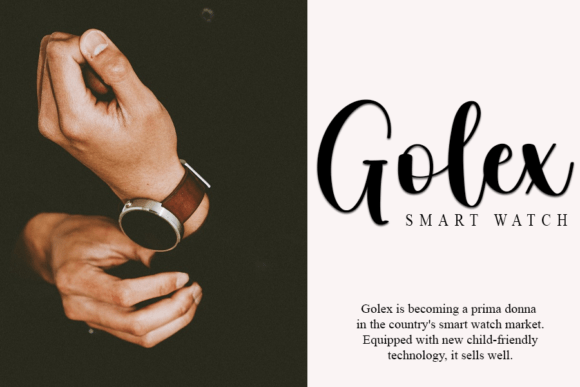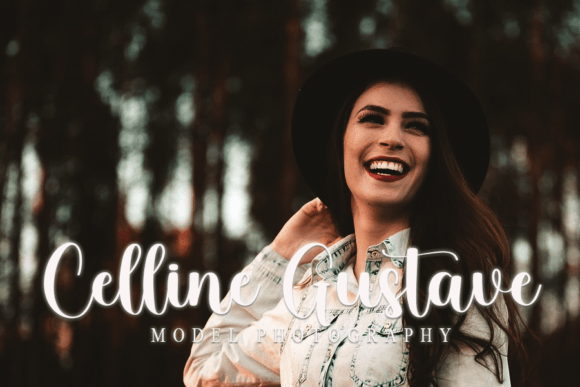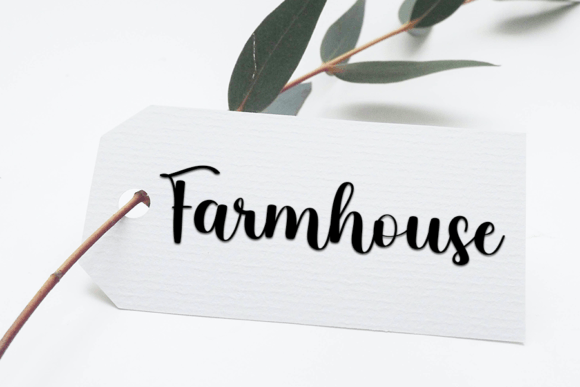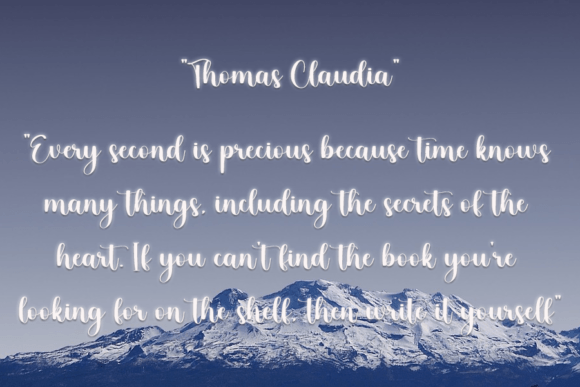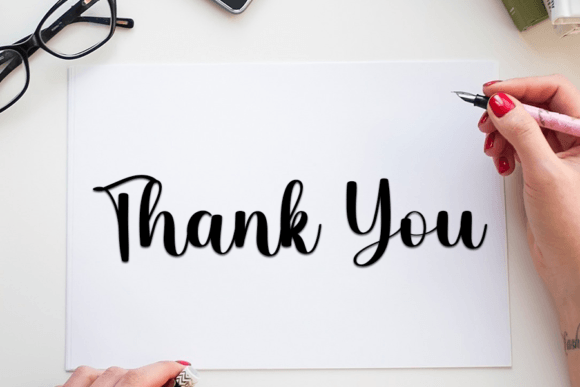
Introducing Handmade Font: A Delicate Handwritten Font for Unique Designs
Are you a designer or crafter looking for a font that adds a personal touch to your creations? Look no further than Handmade Font, a delicate handwritten font carefully crafted for a cool and unique design. This versatile font can be used to write letters, invitations, food products, titles, and more, making it a must-have for anyone who wants to add a touch of elegance and whimsy to their work.
The Story Behind Handmade Font
Handmade Font is a labor of love, created with precision and care to bring a sense of warmth and personality to your designs. The font’s delicate lines and curves are reminiscent of handwritten writing, evoking a sense of nostalgia and charm. Whether you’re creating digital content or physical products, Handmade Font is the perfect choice for anyone who wants to stand out from the crowd.
Key Features of Handmade Font
- Delicate Handwritten Style: Handmade Font features a beautiful, handwritten style that’s perfect for creating unique and eye-catching designs.
- Versatile: This font can be used for a wide range of applications, from letters and invitations to food products and titles.
- Elegant and Whimsical: Handmade Font strikes the perfect balance between elegance and playfulness, making it ideal for designers and crafters who want to add a touch of personality to their work.
- Easily Readable: Despite its delicate nature, Handmade Font is surprisingly easy to read, making it perfect for body text and headlines.
Using Handmade Font in Your Designs
Handmade Font is incredibly versatile, and can be used in a variety of design applications. Here are a few ideas to get you started:
- Invitations and Stationery: Add a touch of elegance to your wedding invitations, birthday cards, and other stationery with Handmade Font.
- Food and Beverage Packaging: Use Handmade Font to create eye-catching labels and packaging for your food and beverage products.
- Digital Content: Add a personal touch to your blog posts, social media graphics, and email newsletters with Handmade Font.
- Crafting and DIY Projects: Use Handmade Font to create unique and personalized titles, labels, and signs for your crafting and DIY projects.
Tips for Getting the Most Out of Handmade Font
To get the most out of Handmade Font, here are a few tips to keep in mind:
- Experiment with Font Sizes: Handmade Font looks great in a variety of font sizes, so don’t be afraid to experiment to find the perfect size for your design.
- Pair with Other Fonts: Handmade Font pairs beautifully with other fonts, so try combining it with a bold font for headlines or a clean font for body text.
- Use in Combination with Images: Handmade Font looks great in combination with images, so try using it to add a personal touch to your graphics and illustrations.